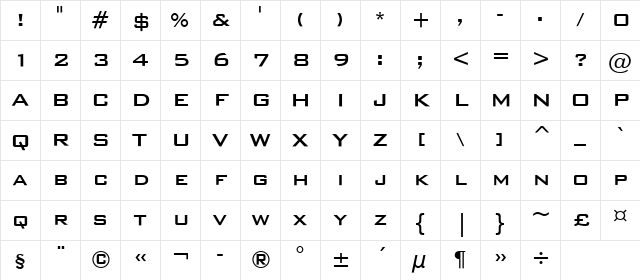
BankGothicCMdBT Medium Regular
Foundry: Bitstream Inc
Design Context for BankGothicCMdBT Medium
BankGothicCMdBT Medium takes a clean, functional approach - its unadorned letterforms prioritise legibility and work reliably across screen and print environments.